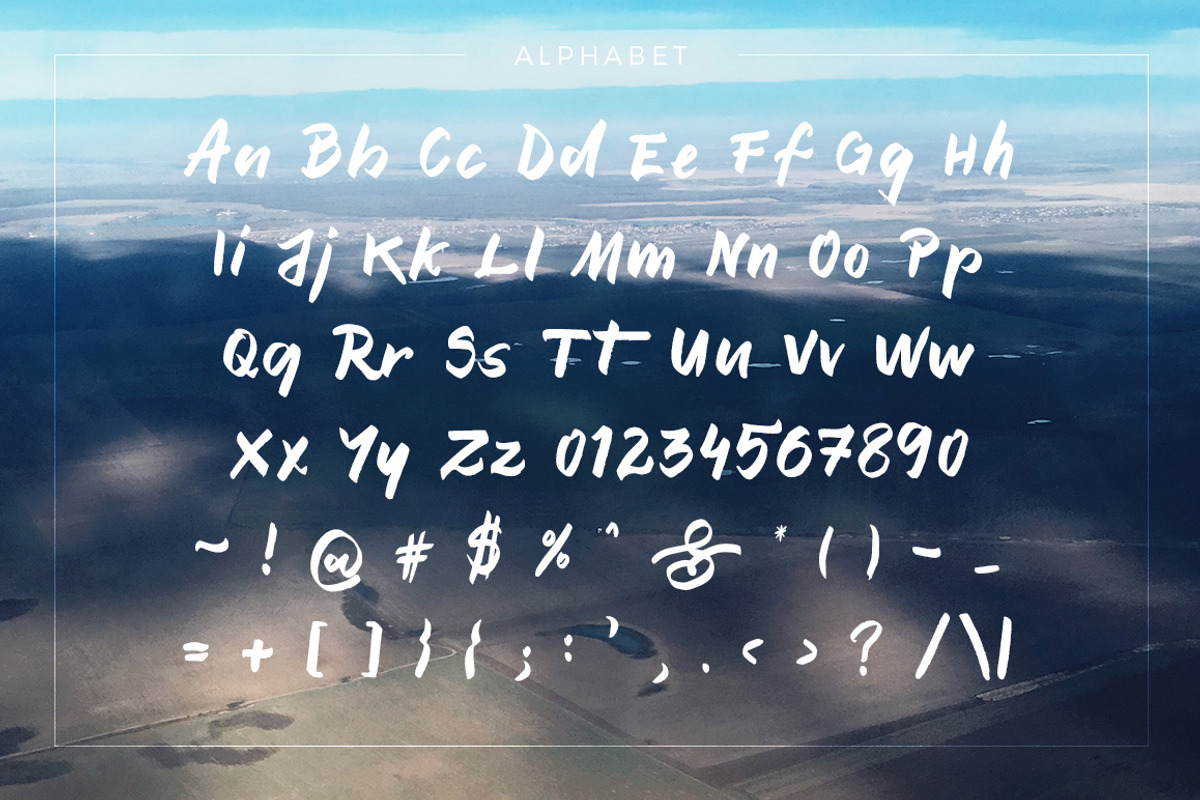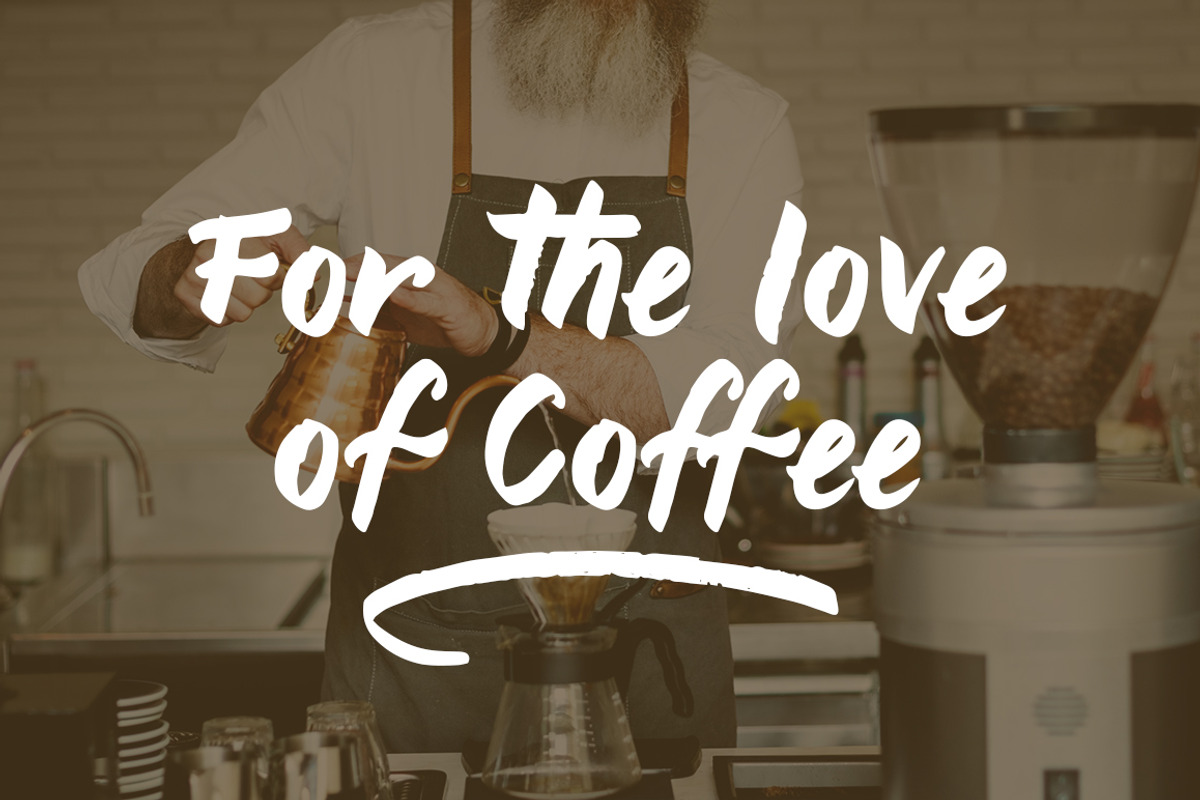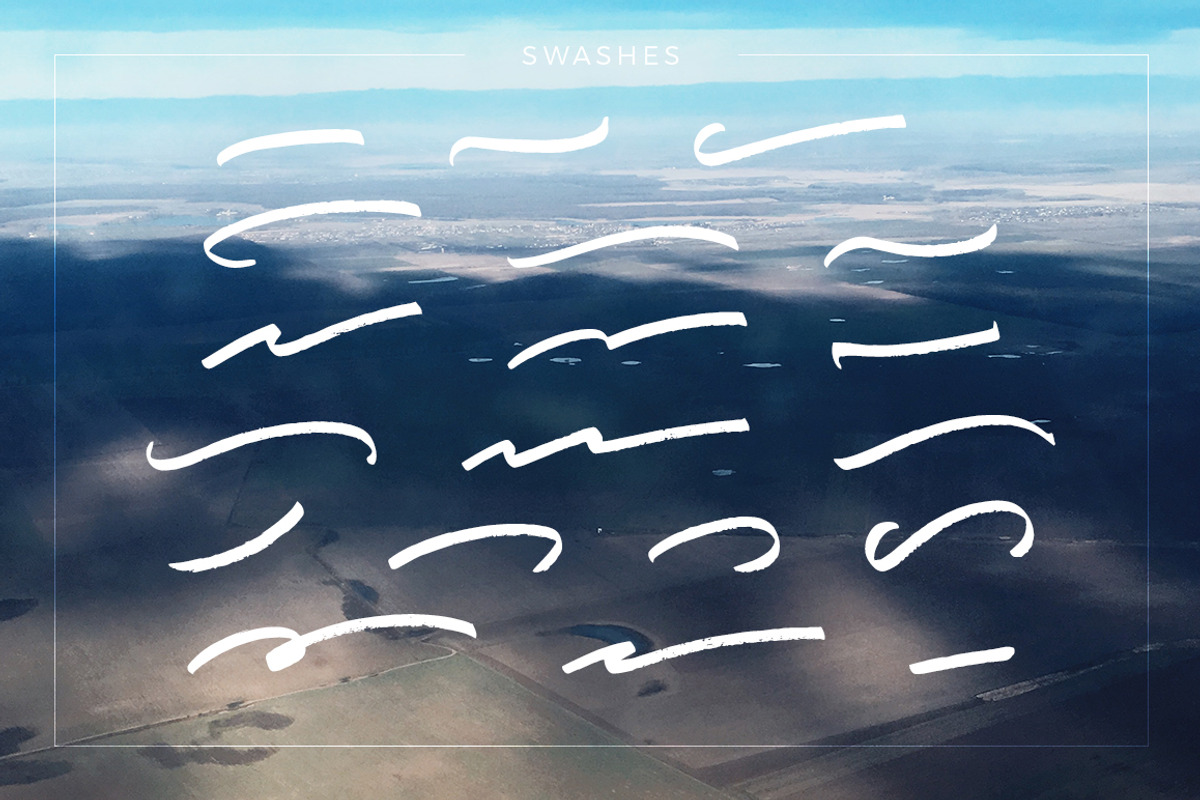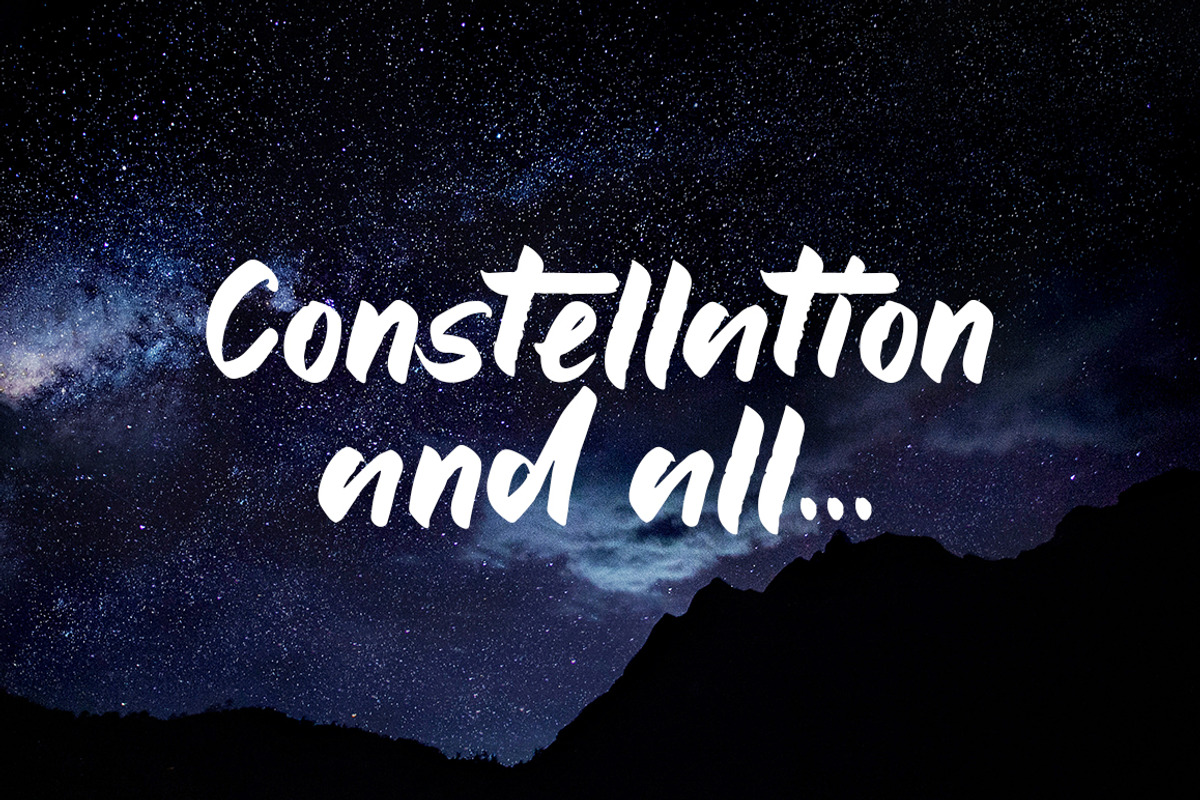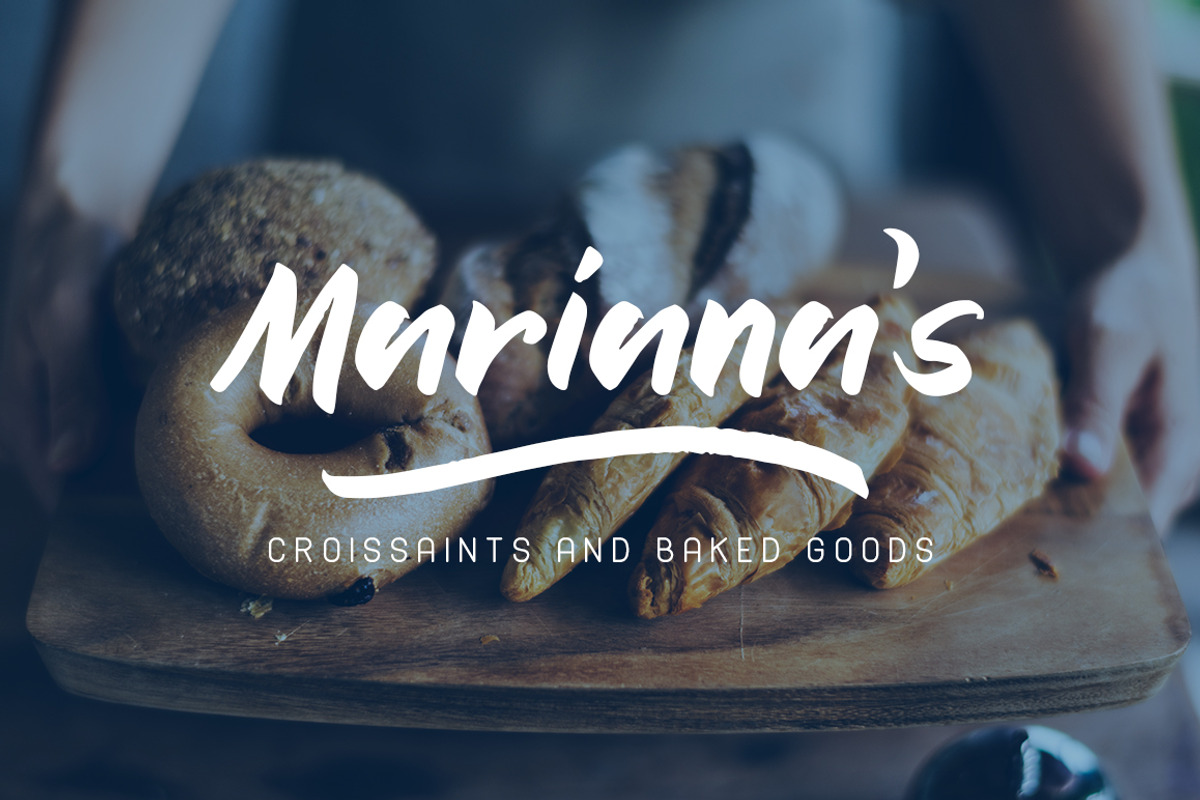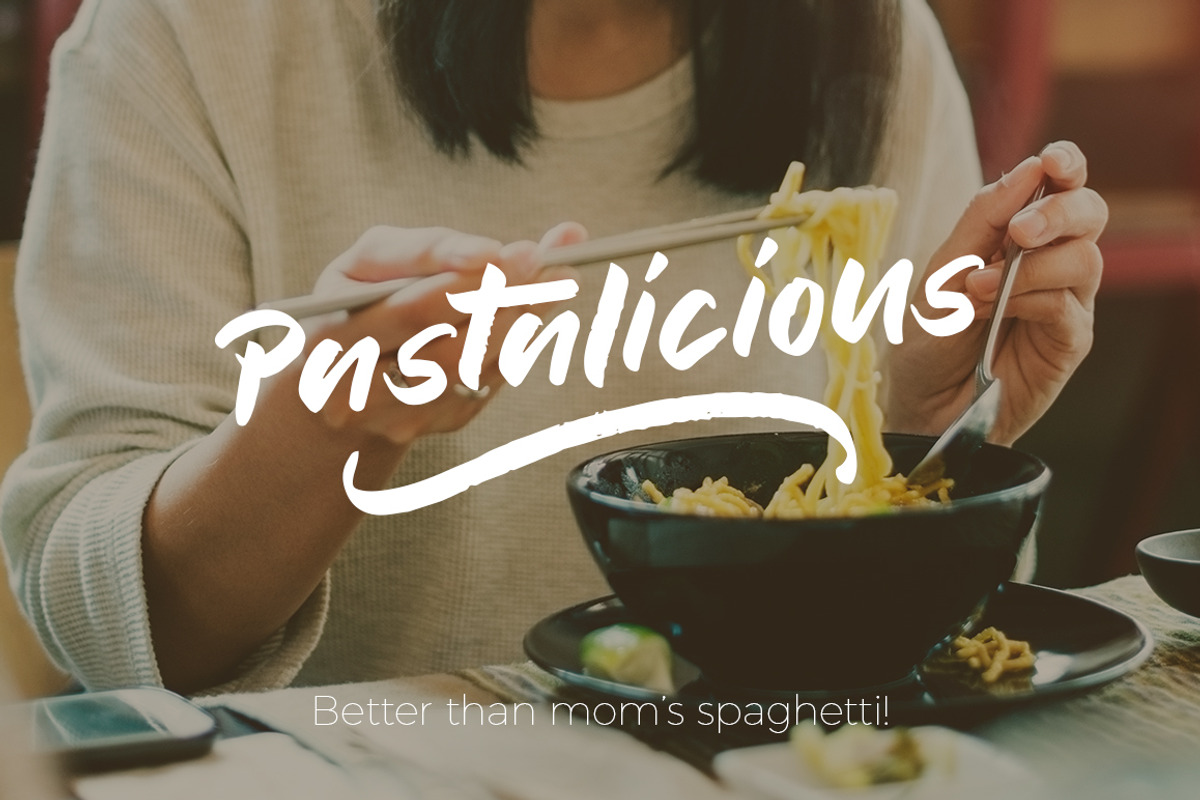
Motanly Typeface
Motanly Typeface by Bogdan Casota is a font selected for branding, posters, packaging, typography.
- It comes with basic alphabet letters, numbers, punctuation marks and a separate font with 20 different and unique swashes.
Why Motanly Typeface is worth a look
Motanly Typeface by Bogdan Casota fits naturally into Branding, posters, packaging, typography.